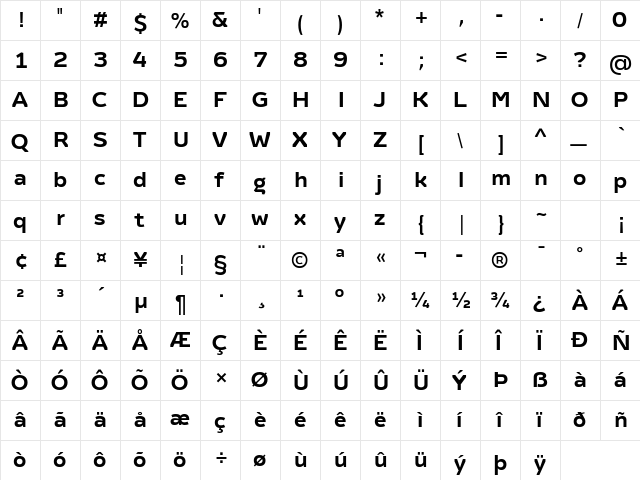
Regave DemiBold
| Designer | Wahyu S. Adi Wibowo |
Design Context for Regave Typeface
Regave is a composed and adaptable typeface that performs quietly and consistently across a wide range of design contexts. The heavy weight commands attention and anchors typographic hierarchies.